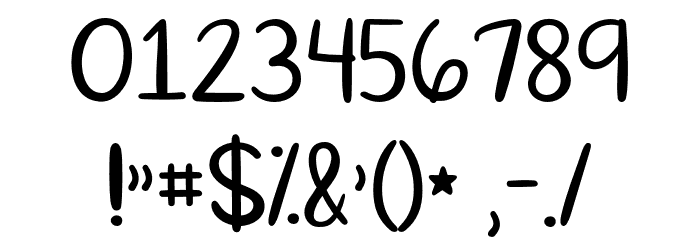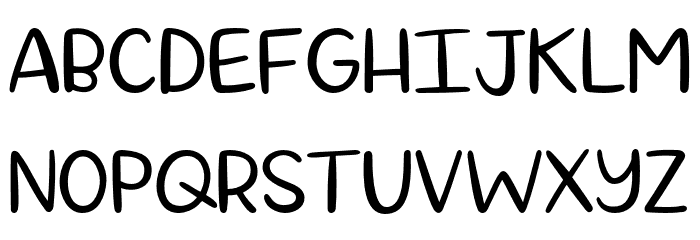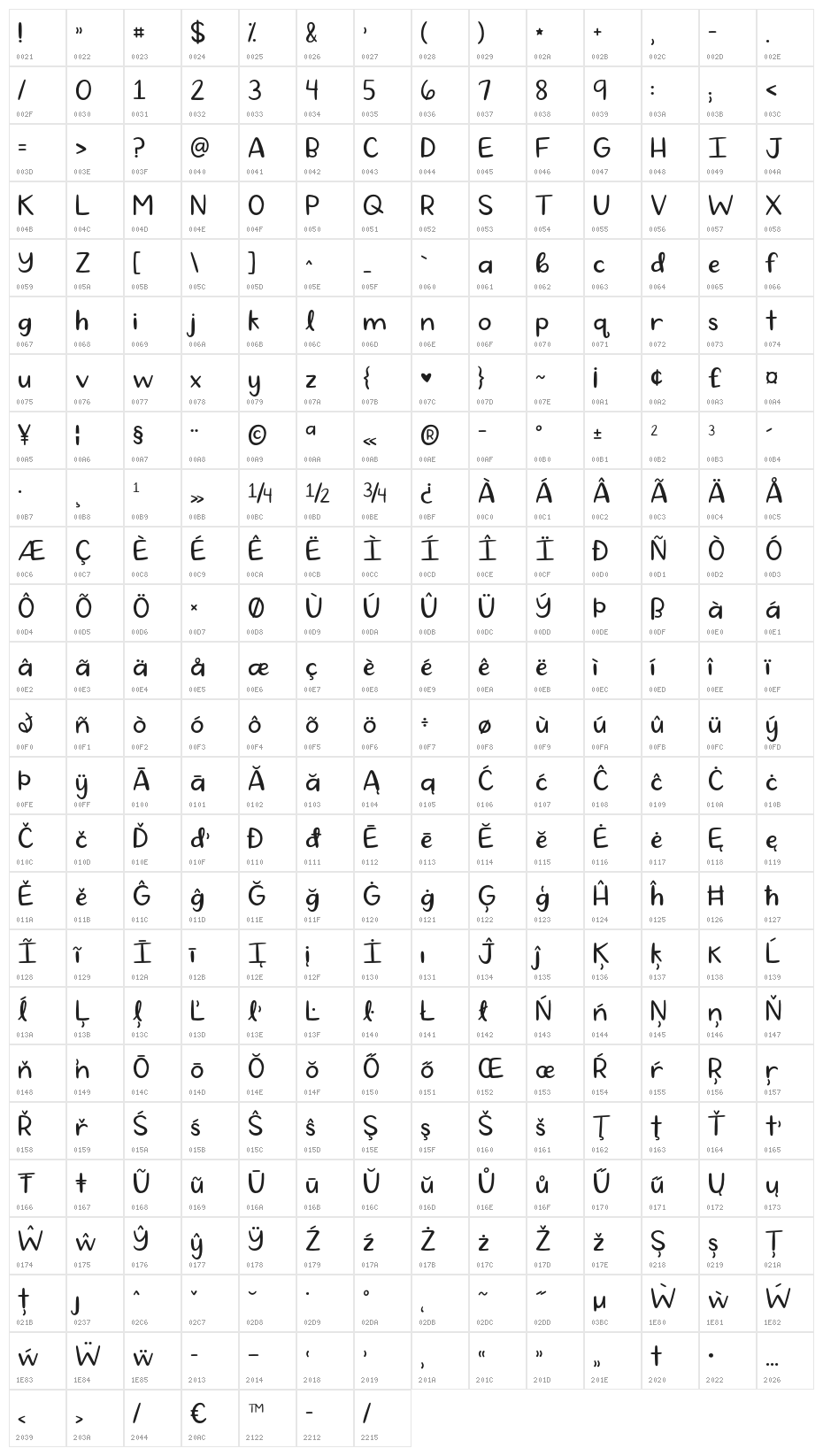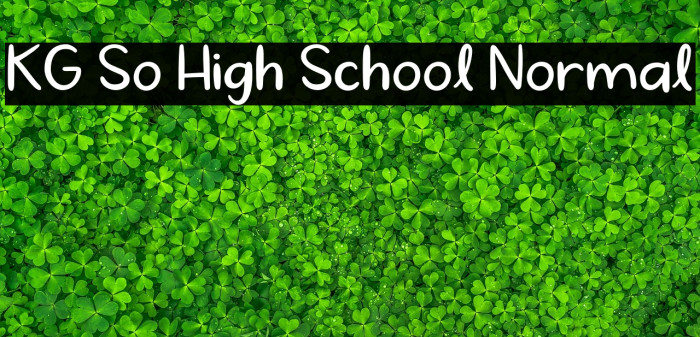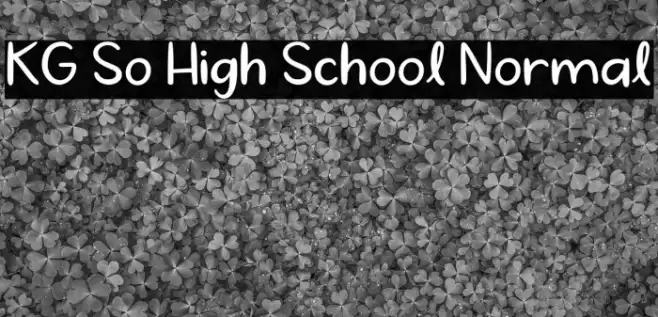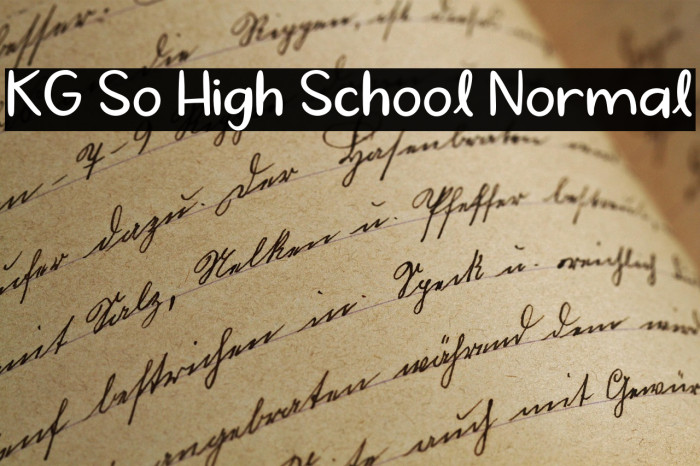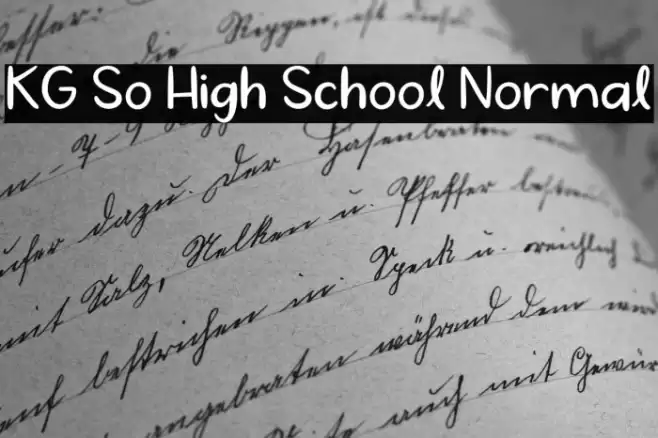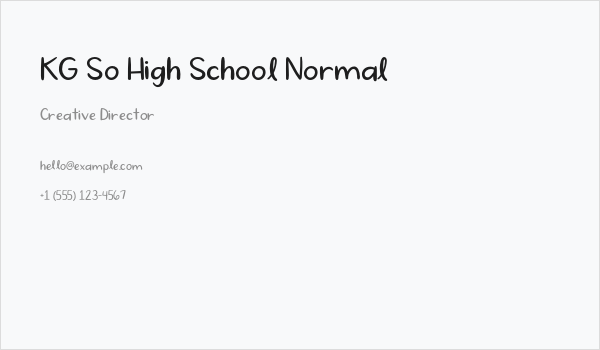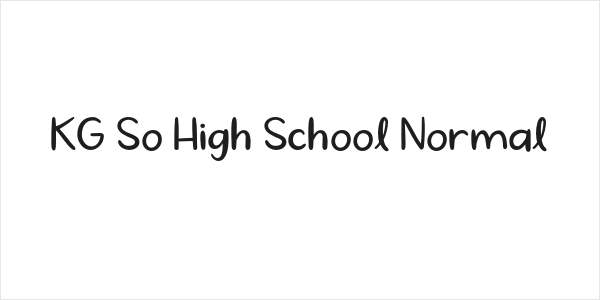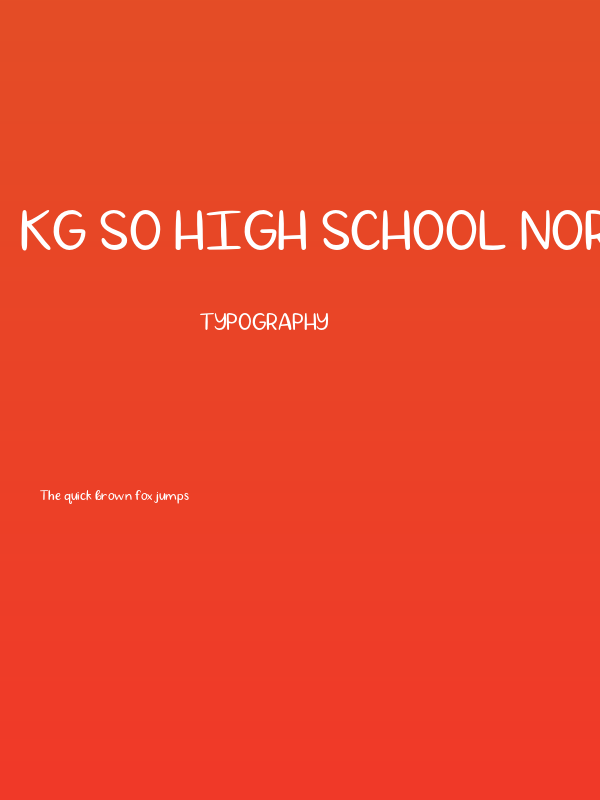
KG So High School Normal Font
KG So High School Normal Description
This font features a playful and casual handwritten style, characterized by its rounded and smooth letterforms. The uppercase letters are slightly taller than the lowercase, giving a friendly and approachable appearance. The strokes are consistent in width, providing a uniform look across all characters. The numbers and special characters maintain the same playful aesthetic, making them blend seamlessly with the alphabet. This font exudes a youthful and informal vibe, ideal for projects that require a personal touch.
| Overall Style | Casual |
| Use Case | Headlines, Informal text, Creative projects |
| Proposed Projects | Ideal for school projects, children's books, greeting cards, and casual invitations. |